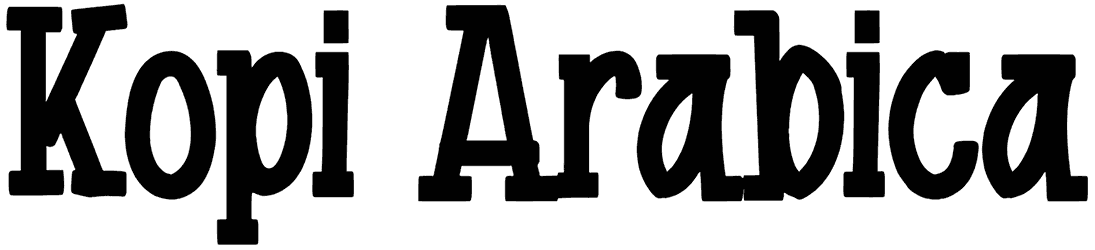
Kopi Arabica Font
Kopi Arabica font is like an explosion of nostalgia that takes us back to our childhood days and can bring the playfulness of the animated world to life.
This cartoon font enlivens any project it touches, even if certain numbers are absent, making it a versatile choice for conveying everything from excitement and energy to humor and silliness. Why not add a touch of magic from this fancy font to your next project and watch your words come alive with all the vibrancy and charm of your favorite cartoons?